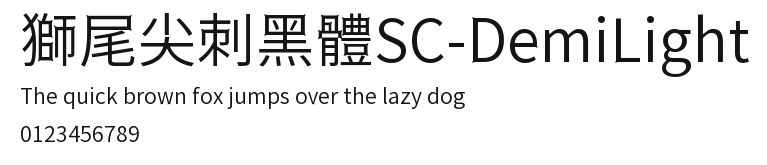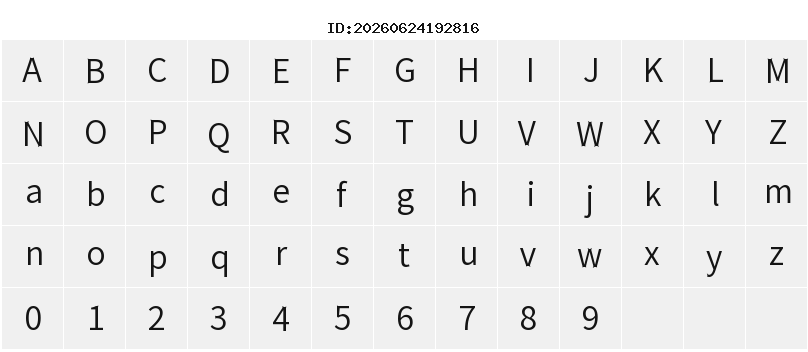
獅尾尖刺黑體SC-DemiLight Preview
About 獅尾尖刺黑體SC-DemiLight.ttf
獅尾尖刺黑體SC-DemiLight.ttf is a modern, elegant sans-serif font designed for ultimate readability and visual harmony. Perfect for branding, headlines, web design, and print materials.